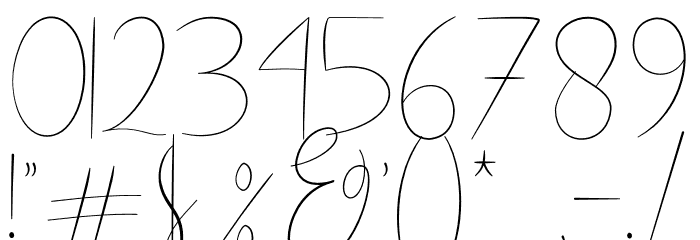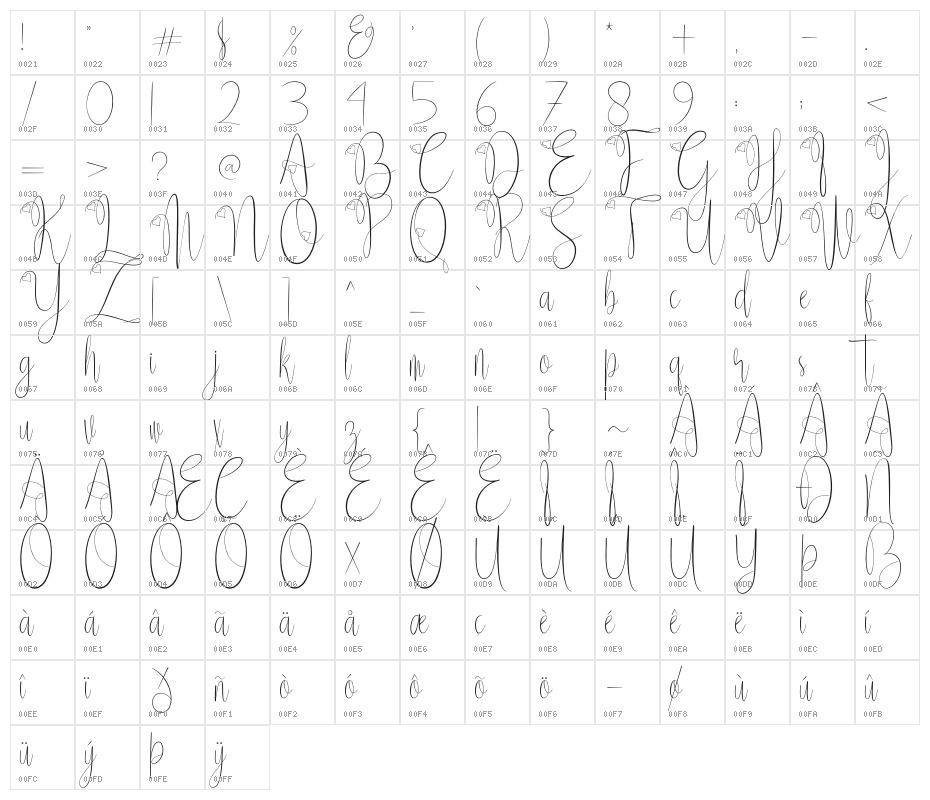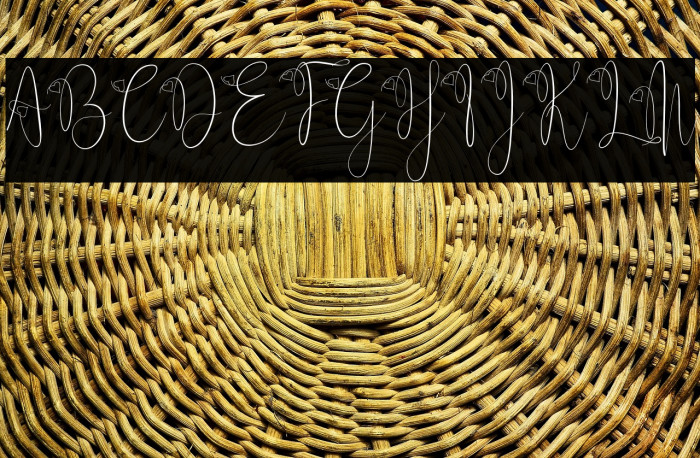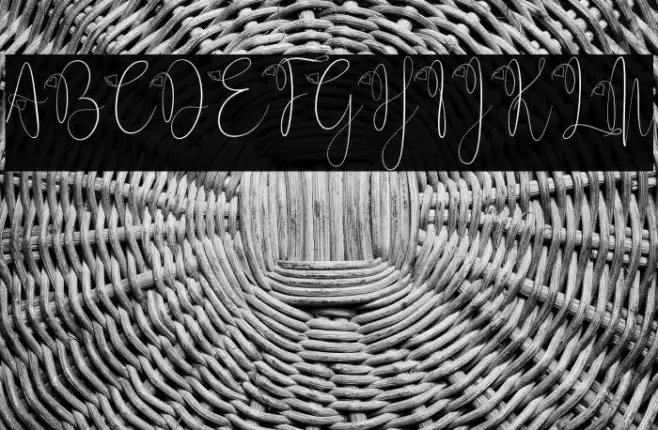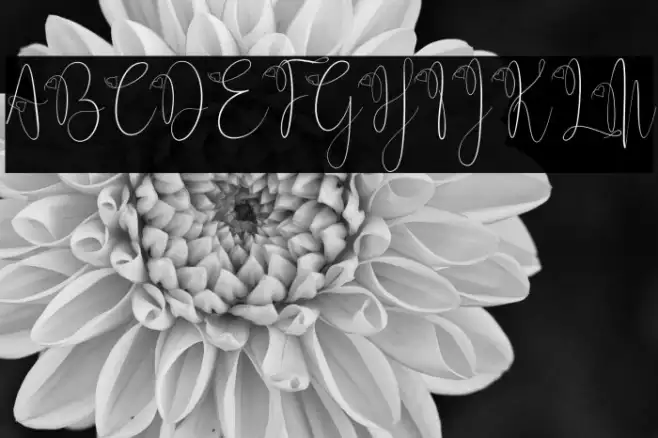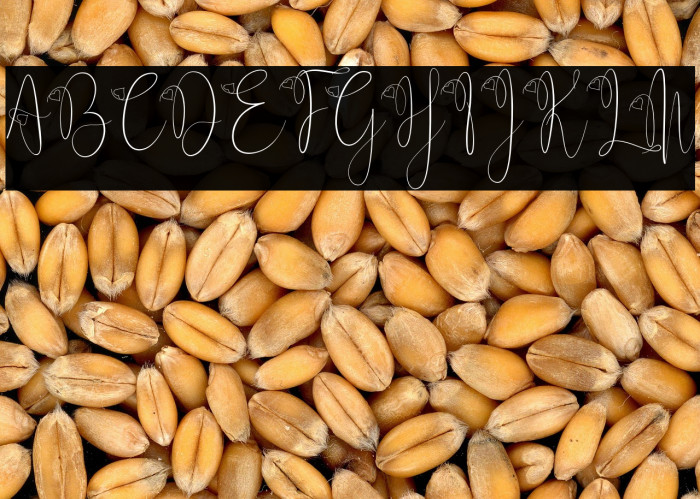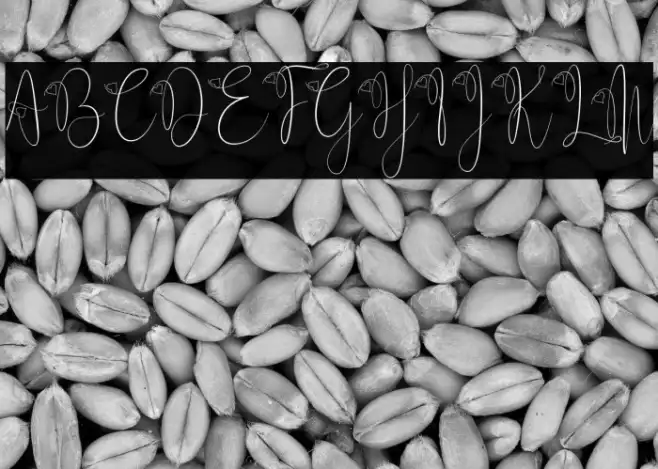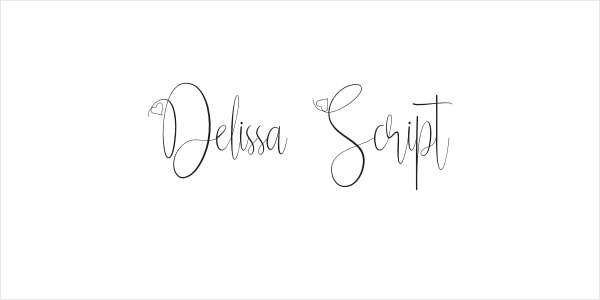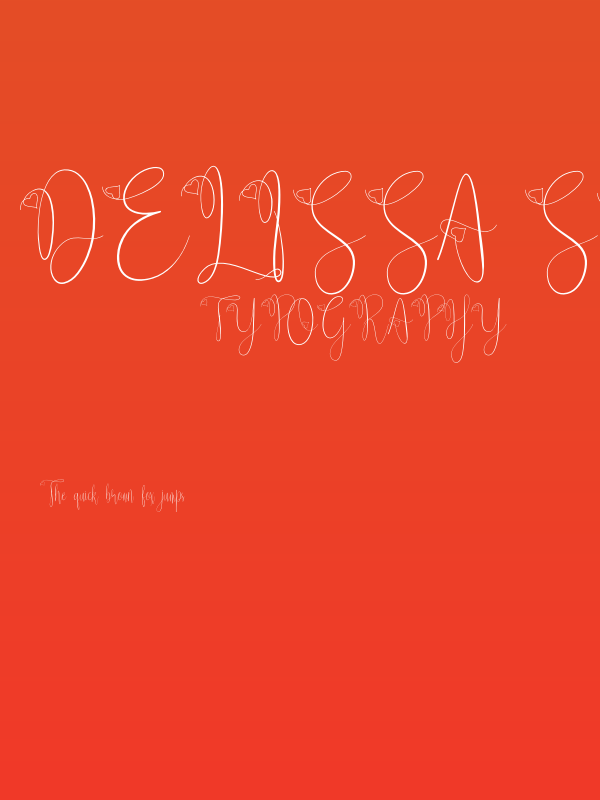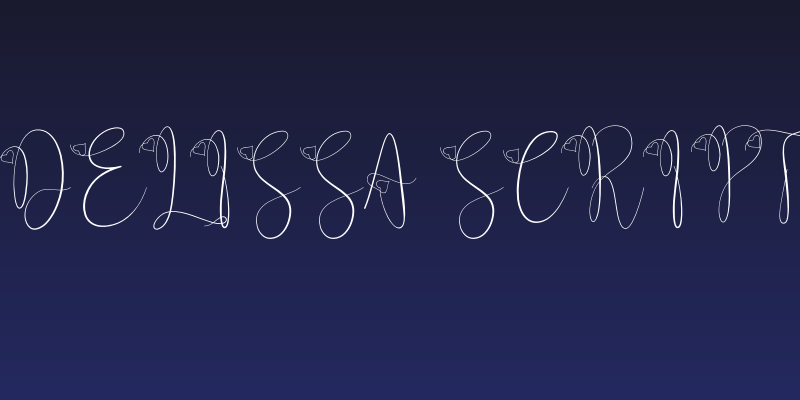
Delissa Script Font
Delissa Script Description
This elegant script font features a delicate and flowing design, characterized by its graceful loops and swirls. The uppercase letters are ornate, with intricate flourishes that add a touch of sophistication. The lowercase letters maintain a consistent style, offering a seamless transition between characters. Numbers and special characters are designed with the same attention to detail, ensuring a cohesive look throughout. The font's thin strokes and high contrast give it a refined appearance, making it suitable for projects that require a touch of elegance and class.
| Use Case | Logos, Invitations, Decorative Headlines |
| Proposed Projects | Ideal for wedding invitations, luxury branding, elegant stationery, and decorative headlines. |